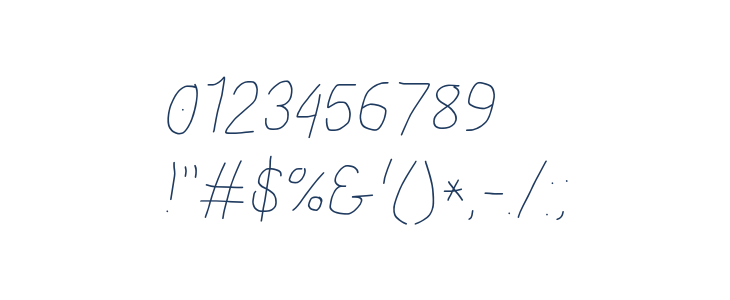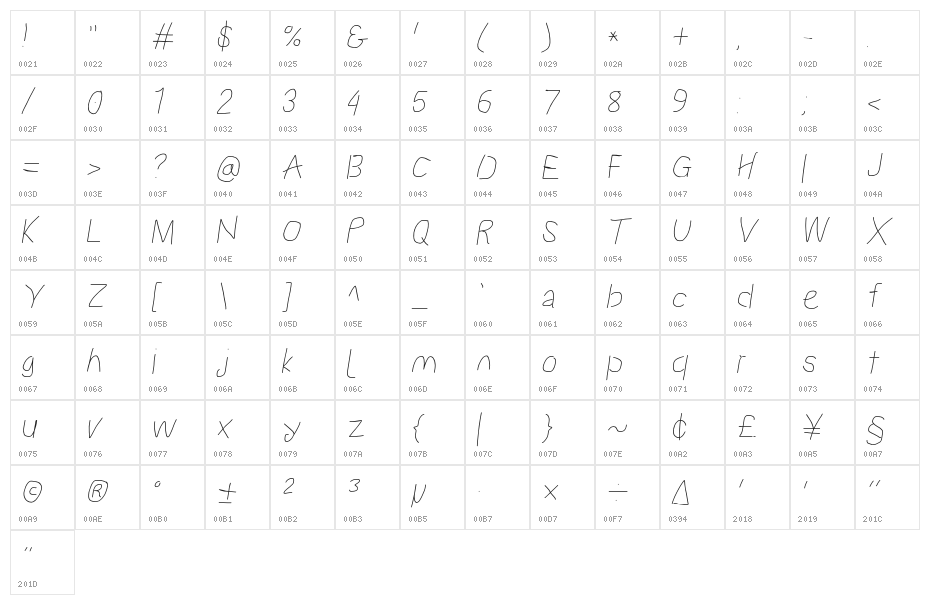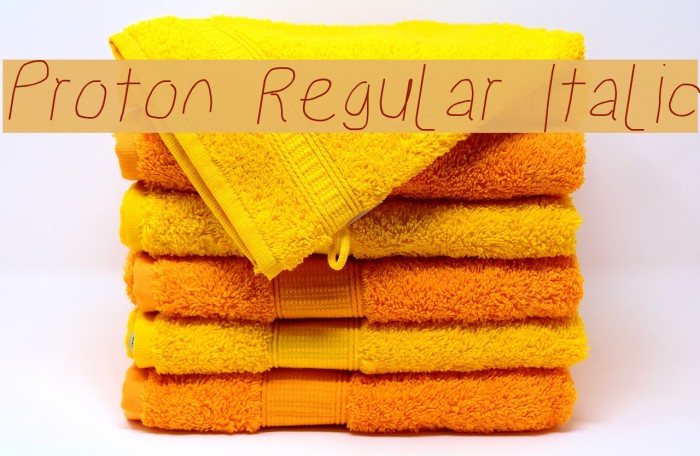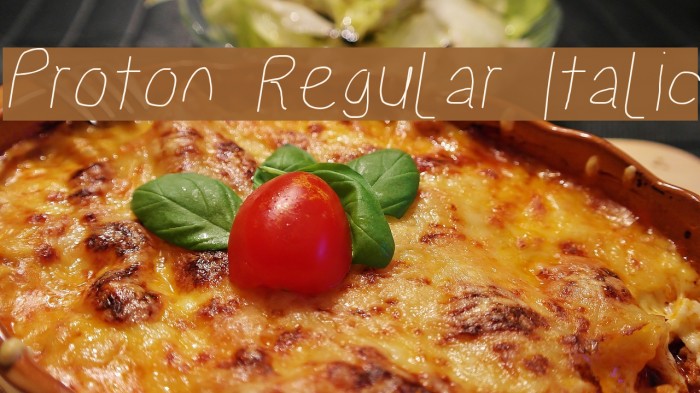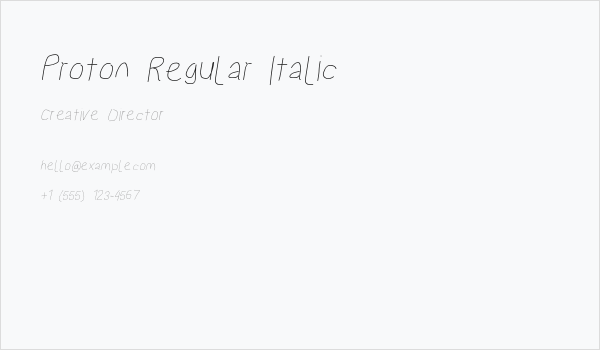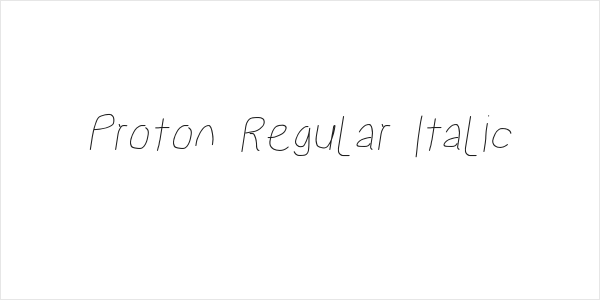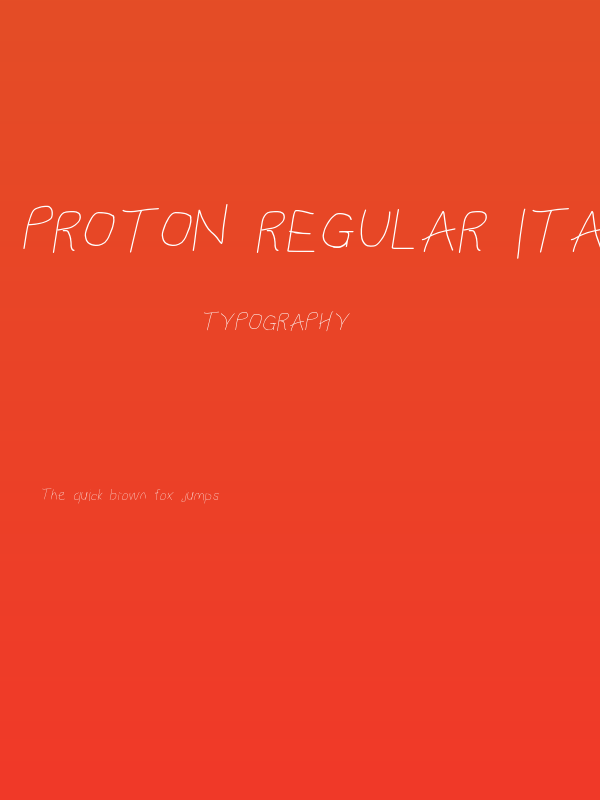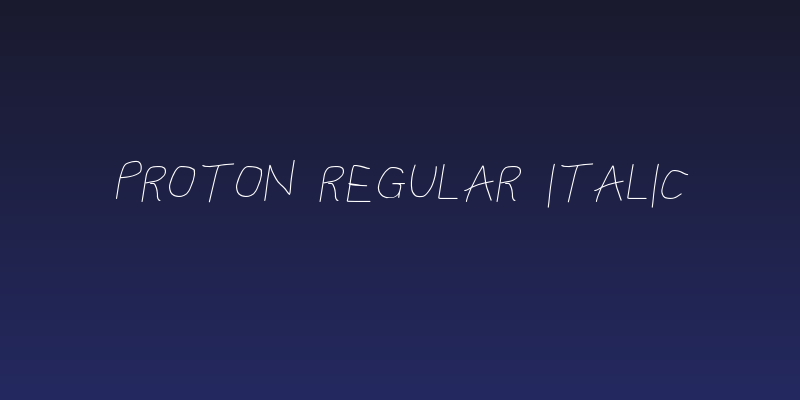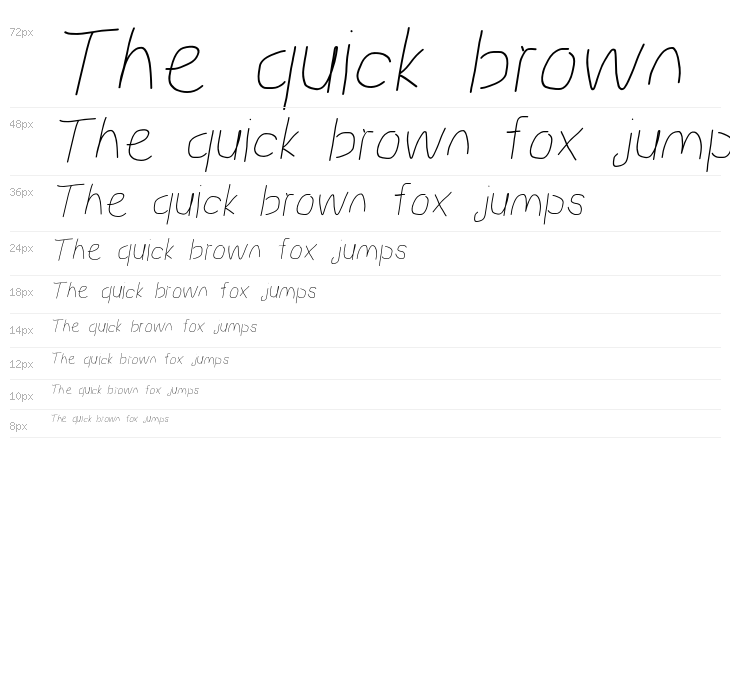
Proton Regular Italic Font
Proton Regular Italic Description
This font features a clean, modern design with a handwritten style that conveys a sense of casual elegance. The characters are slightly slanted, giving it an italic appearance, while maintaining a consistent stroke width throughout. The uppercase letters are tall and narrow, with distinct curves and angles that add a touch of sophistication. Lowercase letters are more rounded, providing a nice contrast to the sharper uppercase forms. Numbers and special characters are designed to match the overall aesthetic, ensuring a cohesive look across all text. The font's simplicity and clarity make it highly readable, while its unique style adds personality to any project.